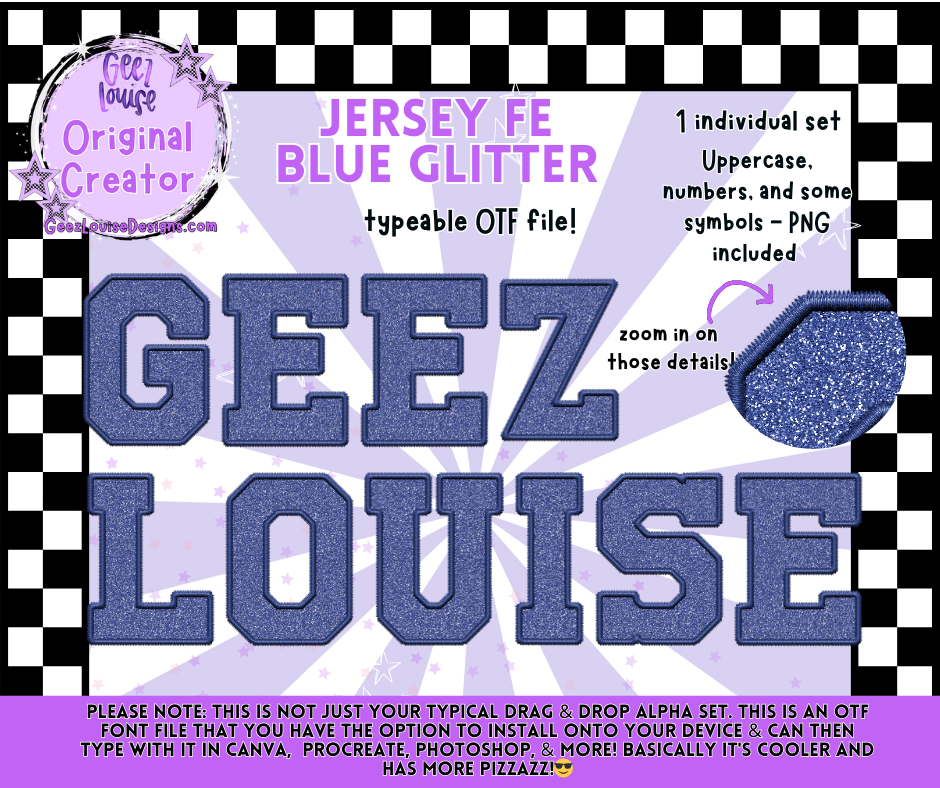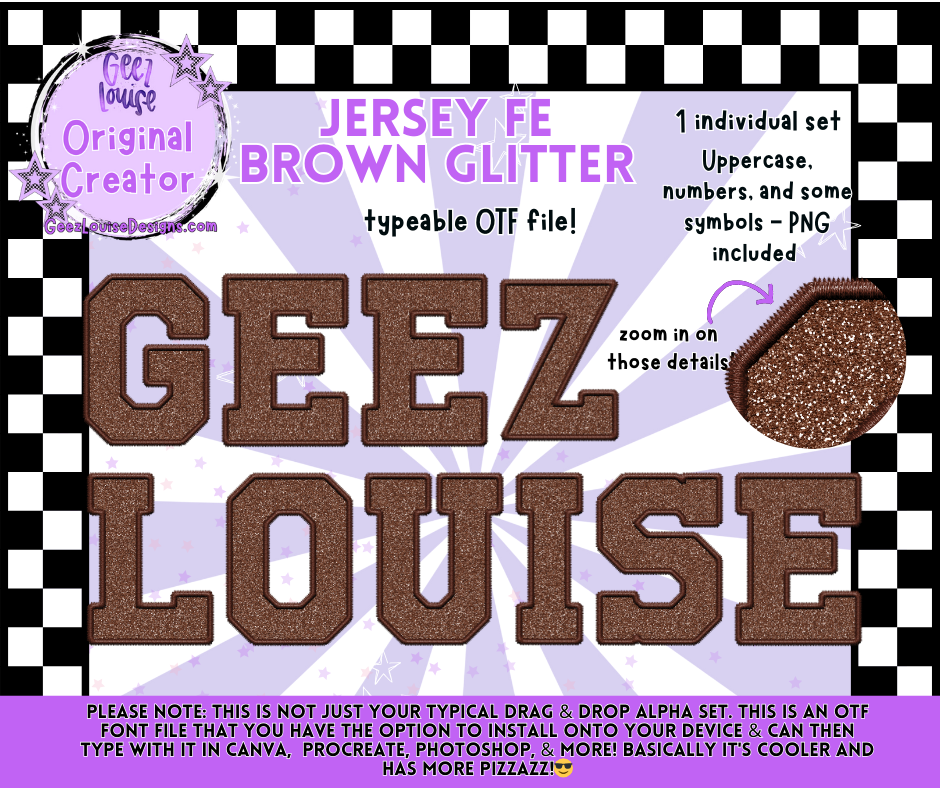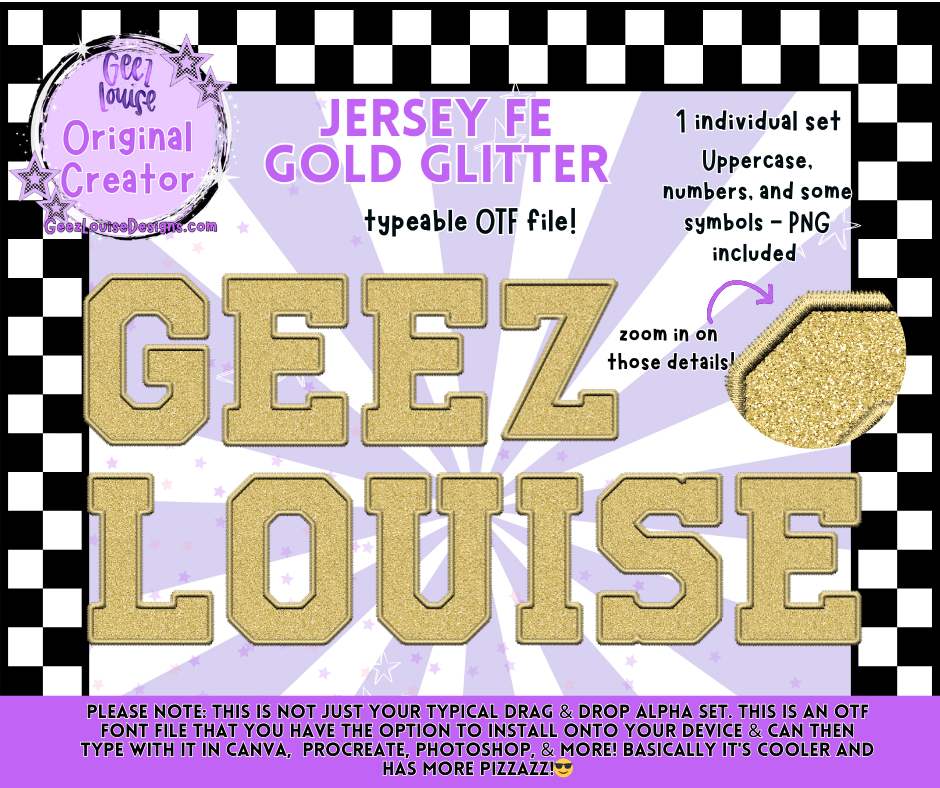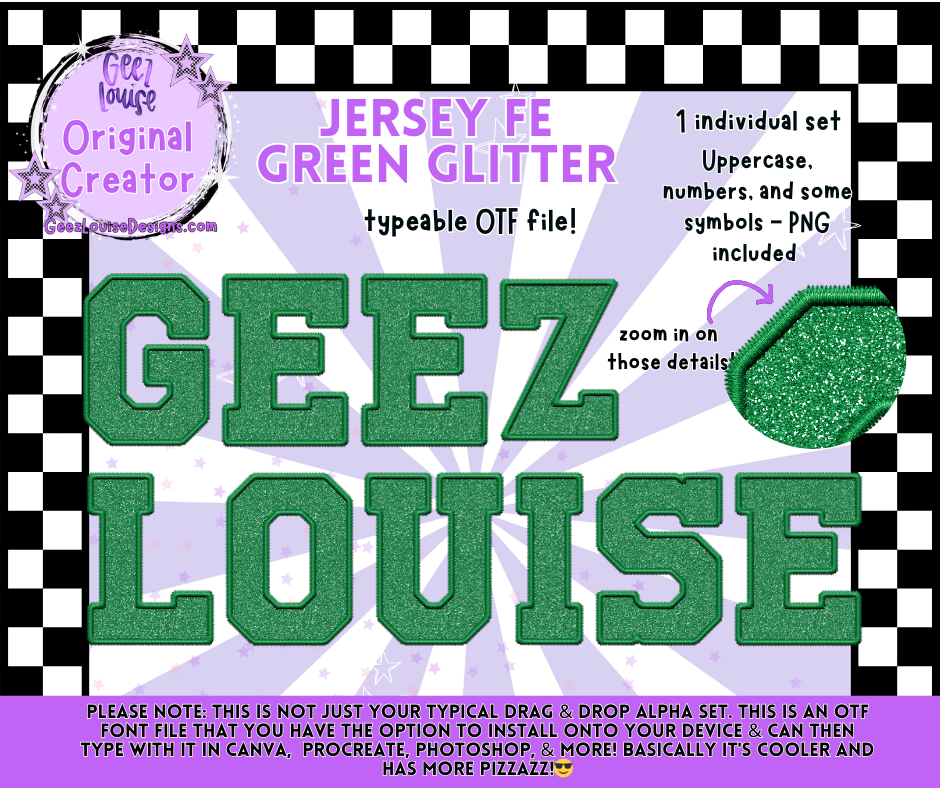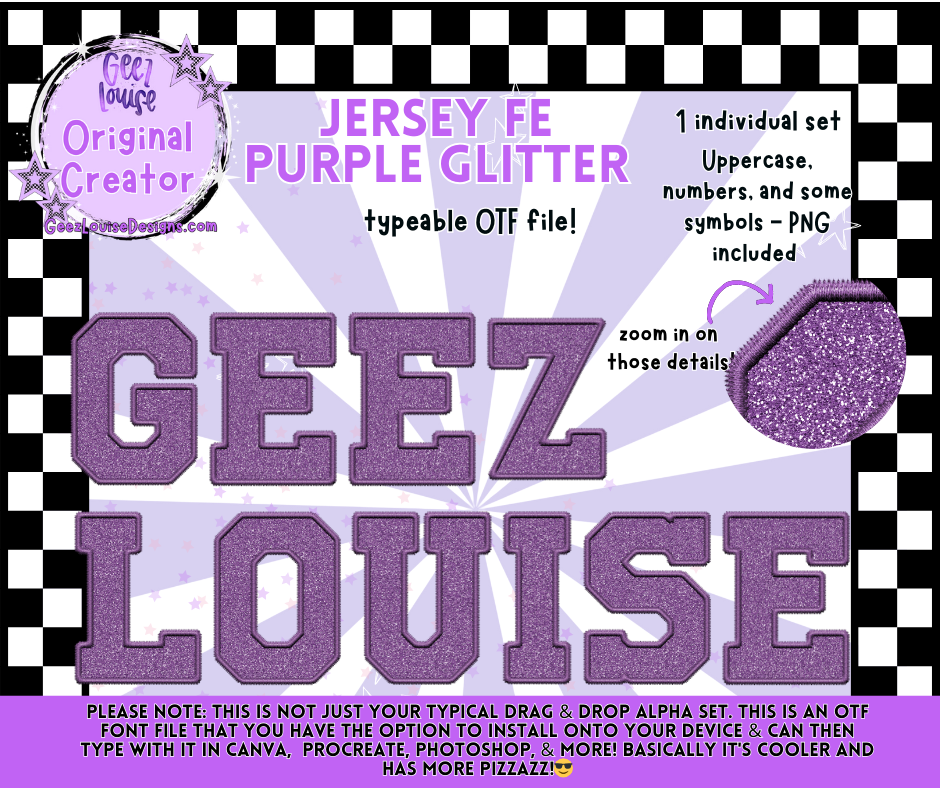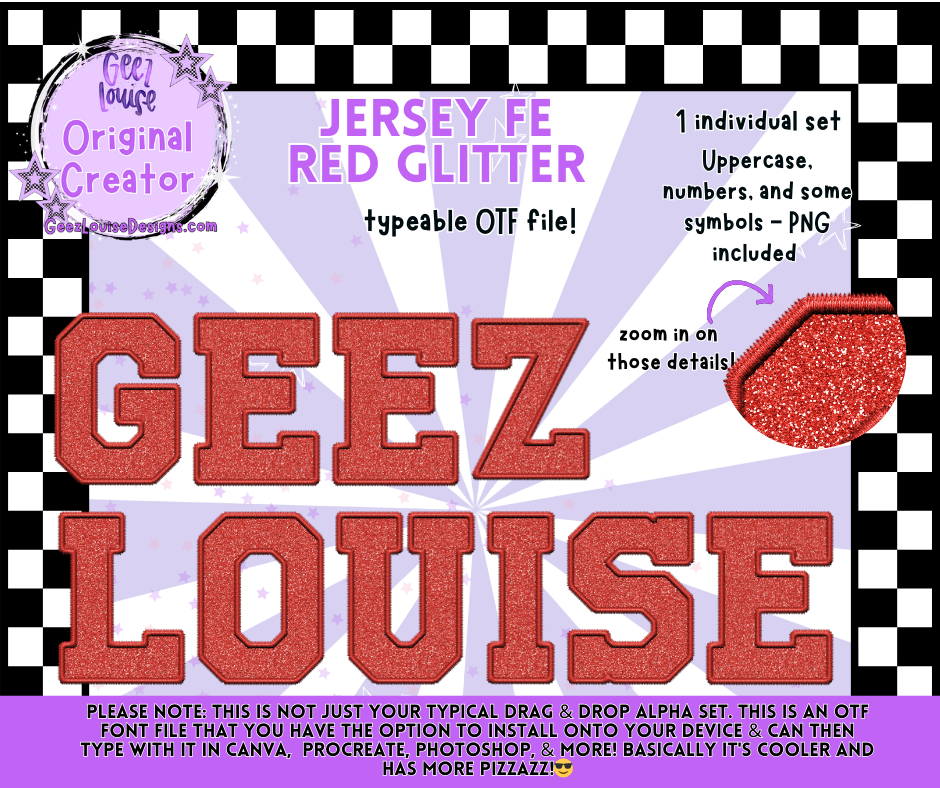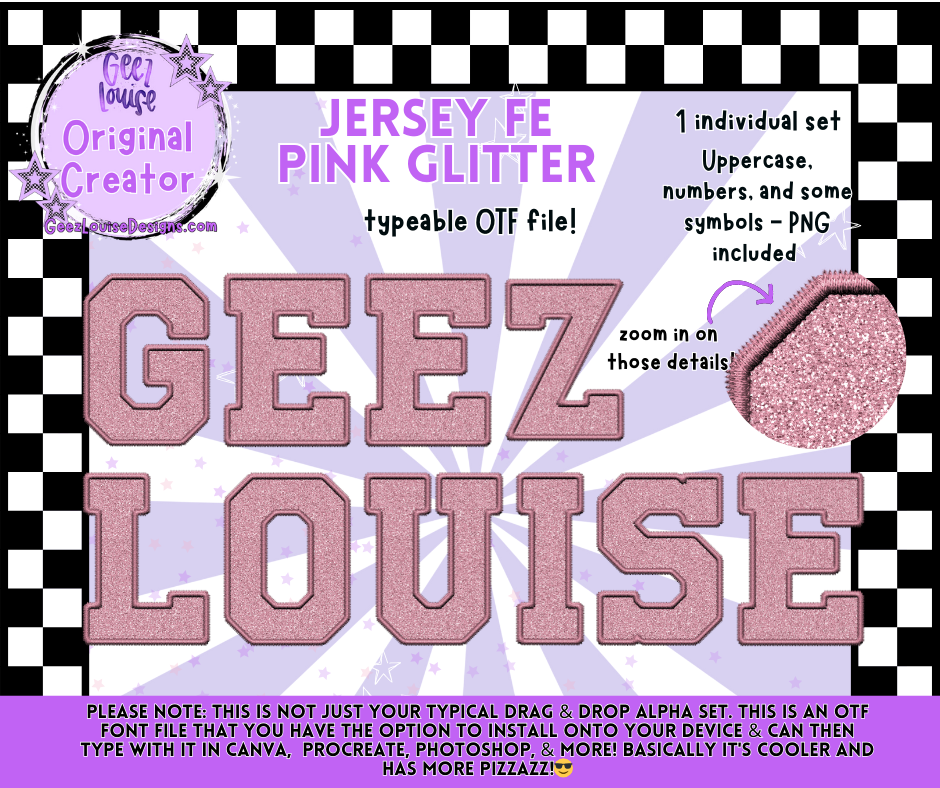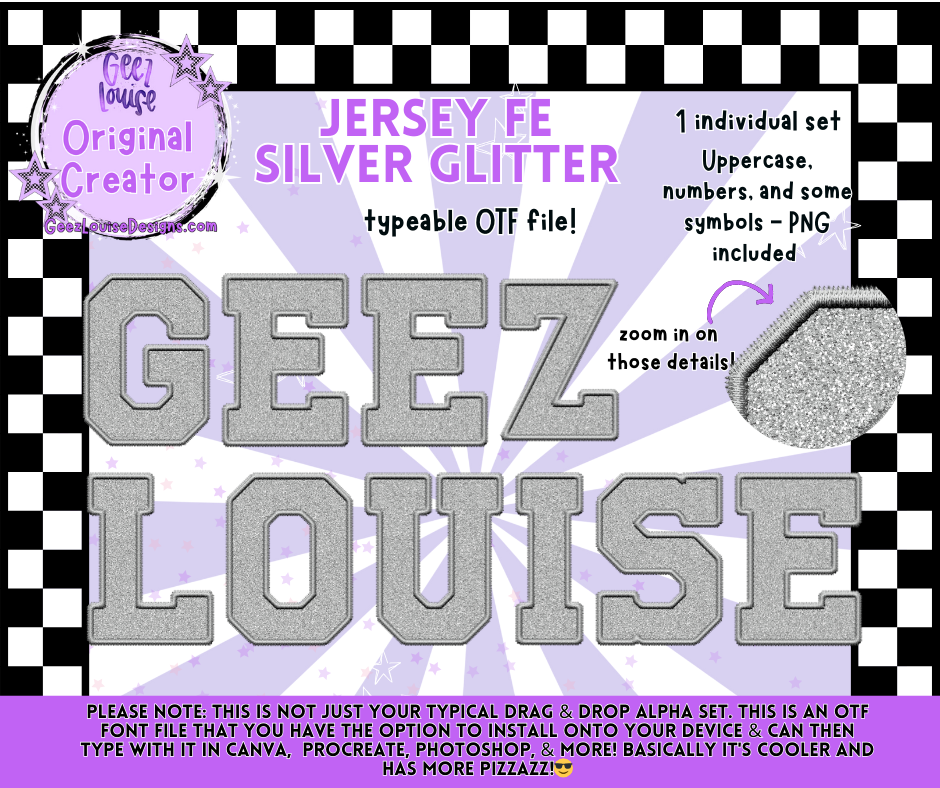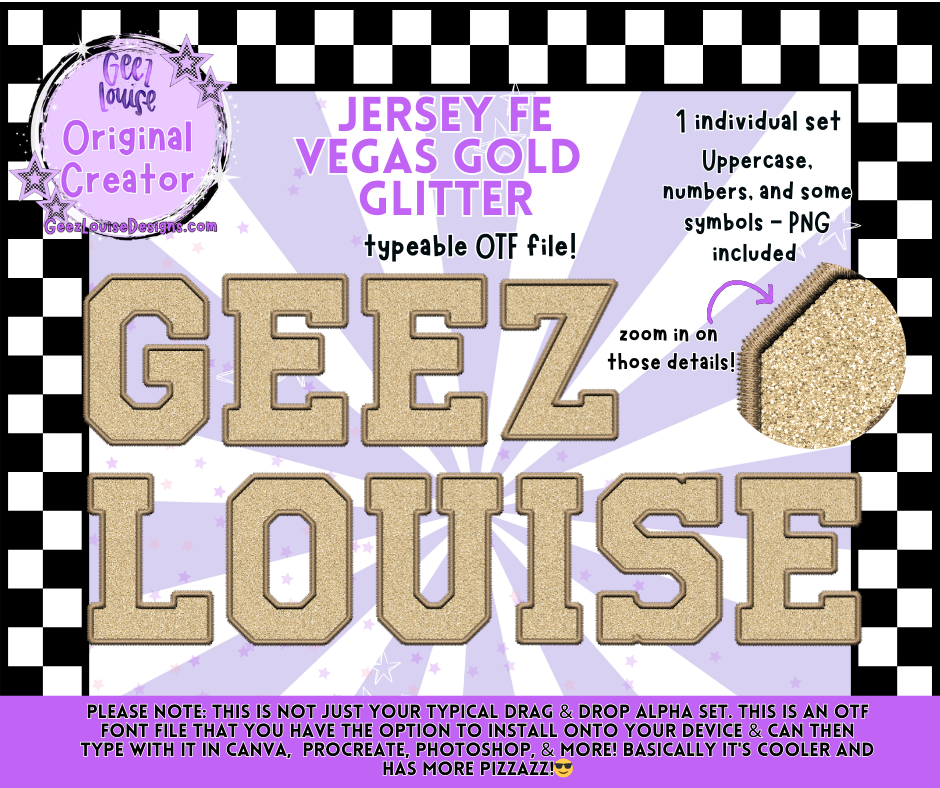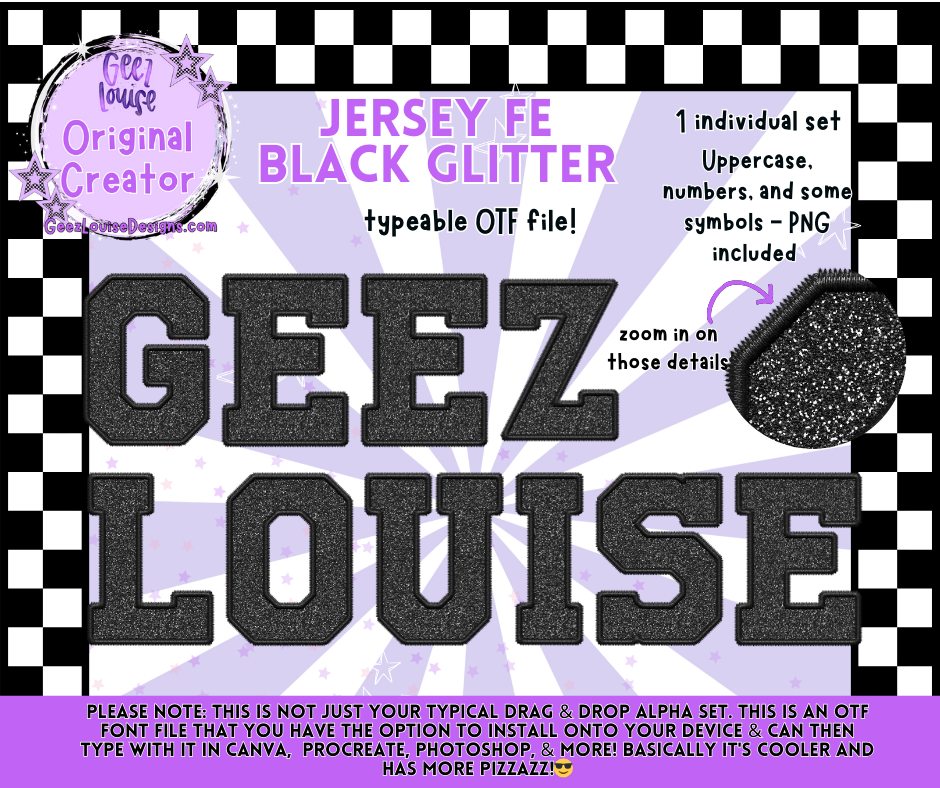
Glitter Varsity Faux Embroidery Alpha – 12 Colors | OTF Font + PNG
Bring the glitter, bring the grit—this alpha set hits different. The Jersey Faux Embroidery Alpha is your go-to for stitched sparkle with a sporty edge. Now in 12 glitter-drenched colorways, it’s ready to match your mood, your team, or your inner chaos.